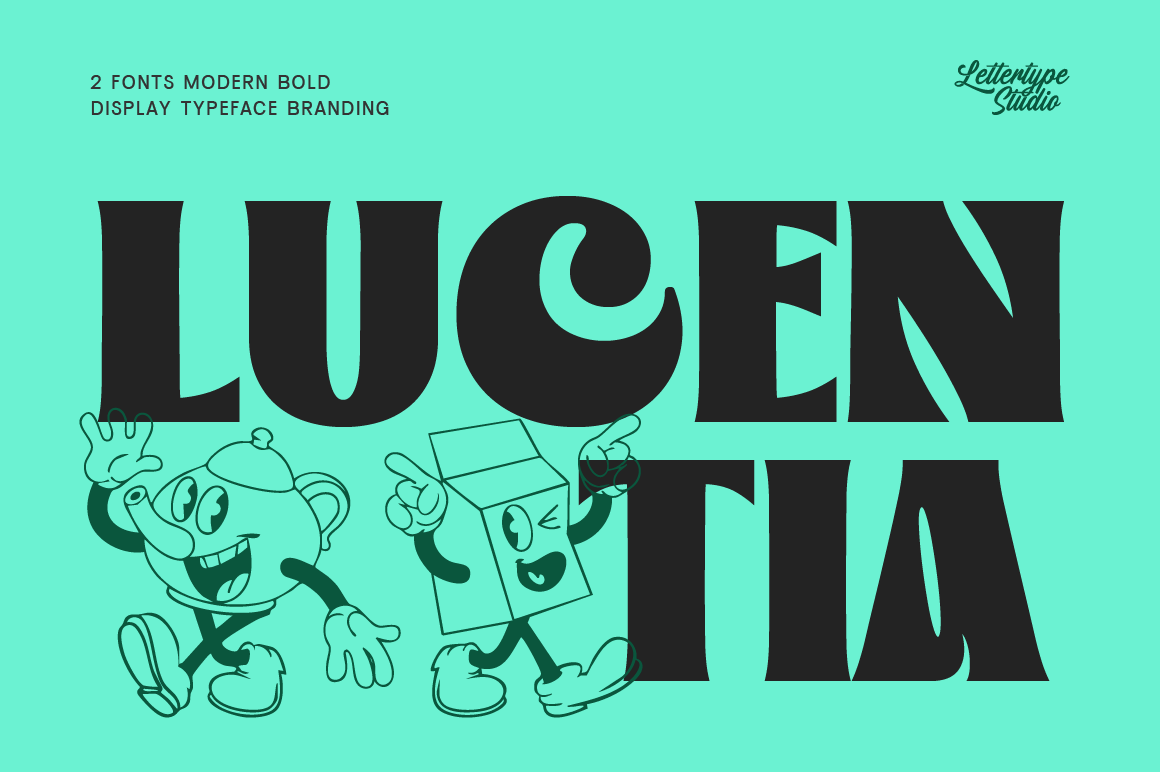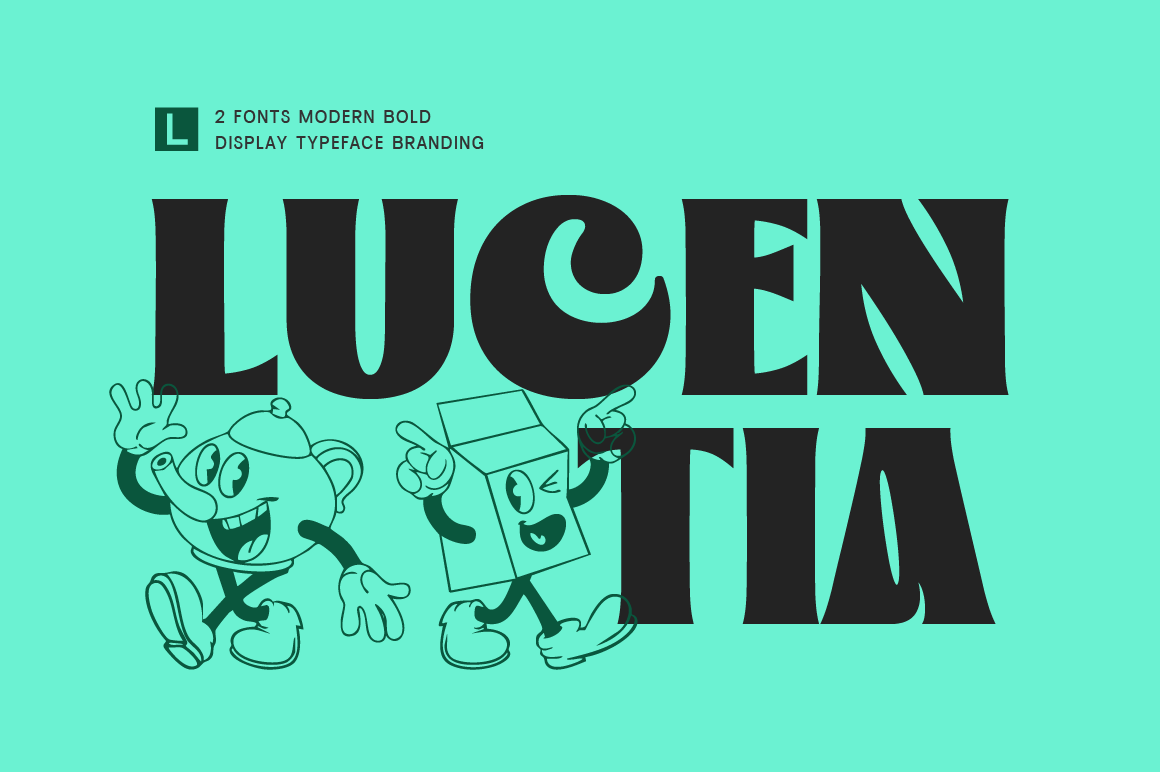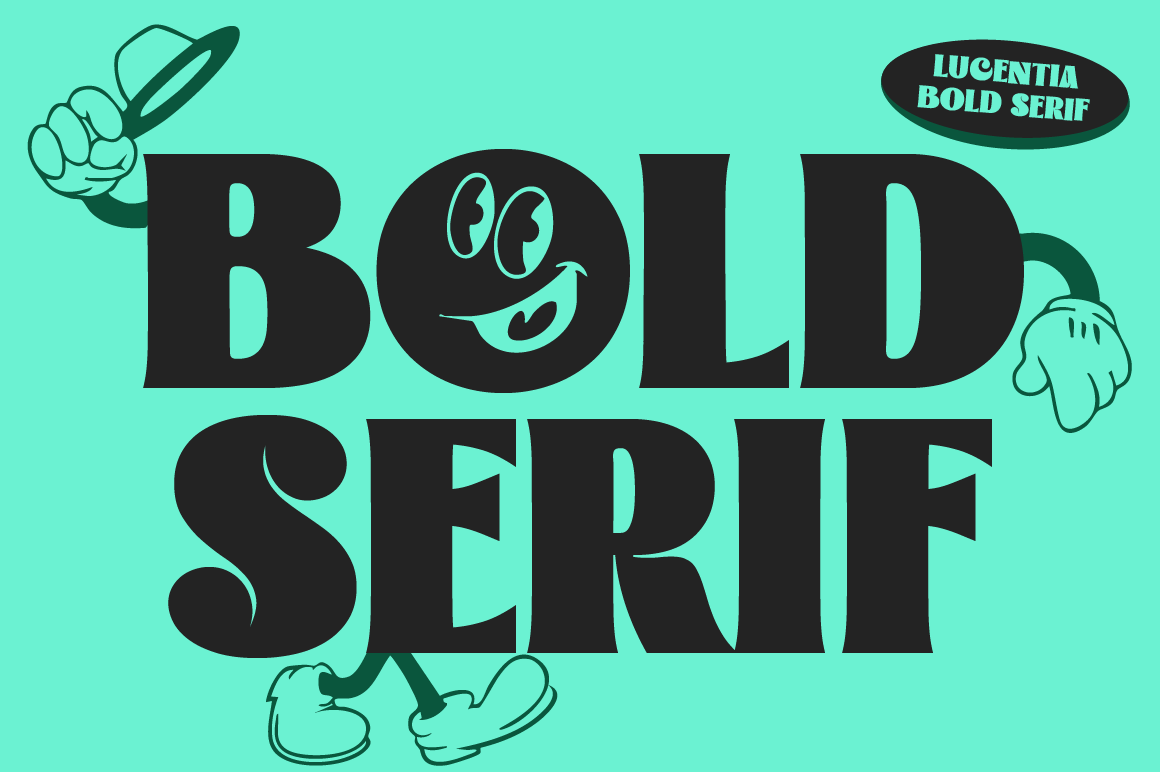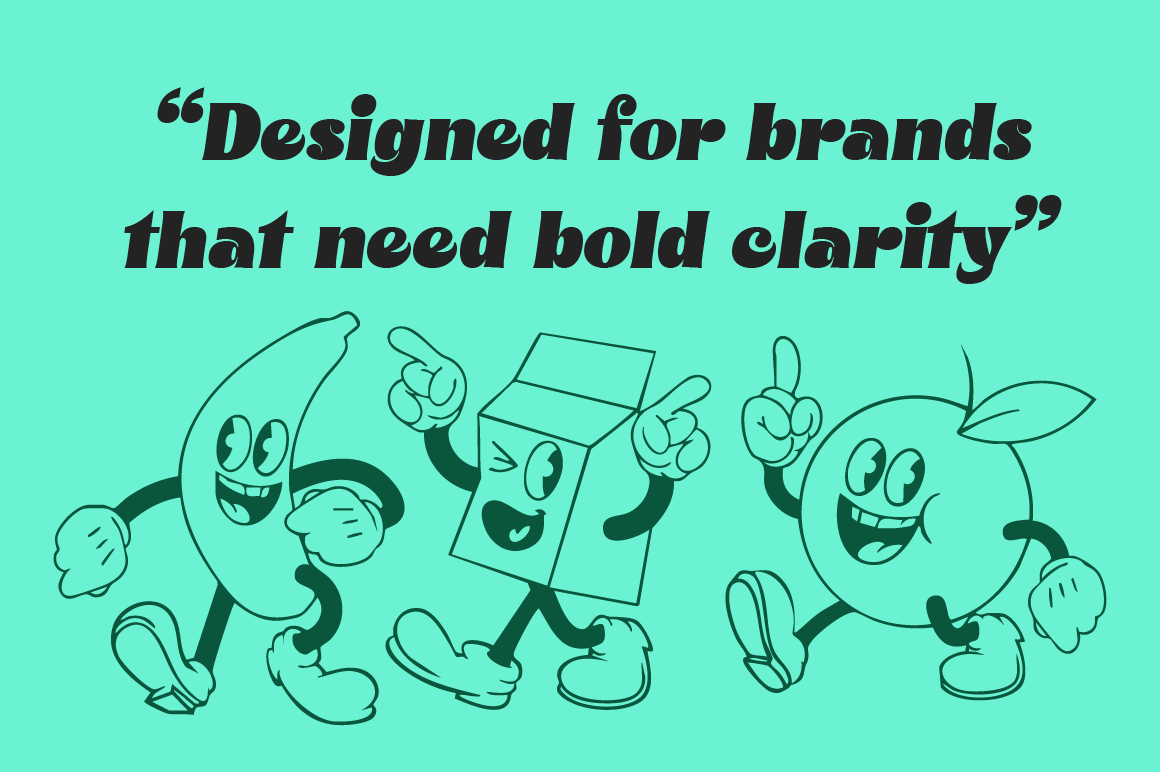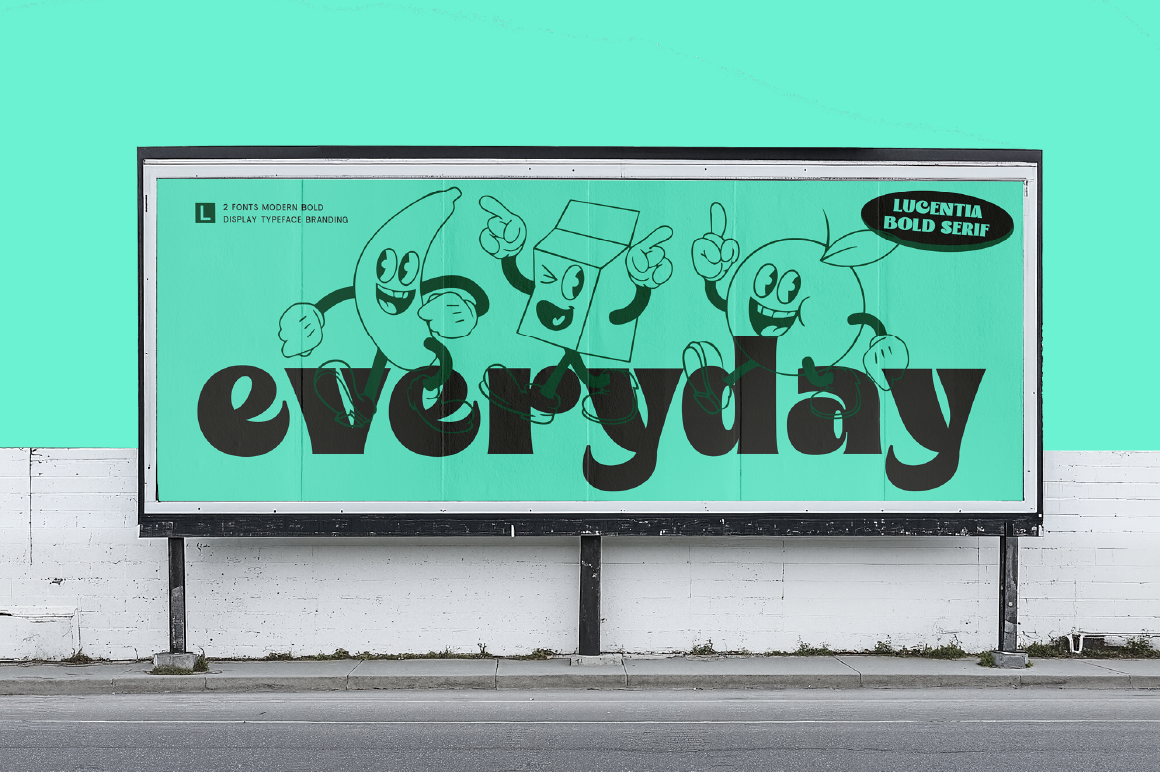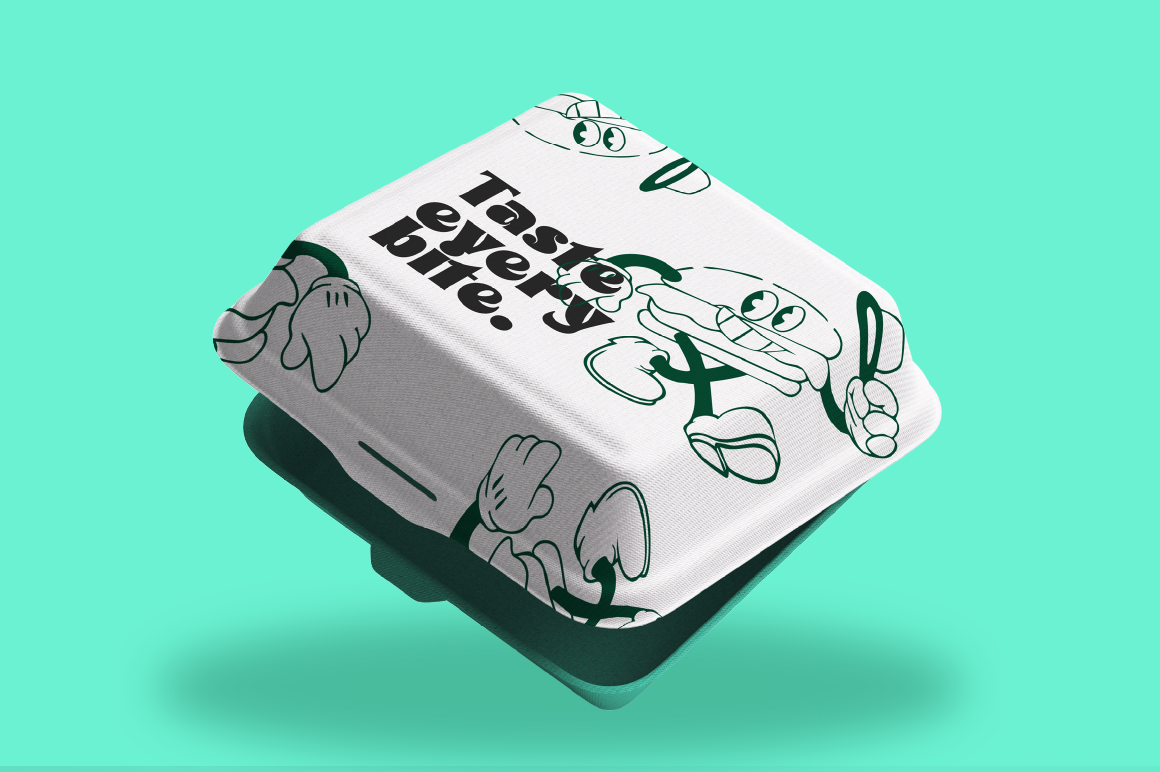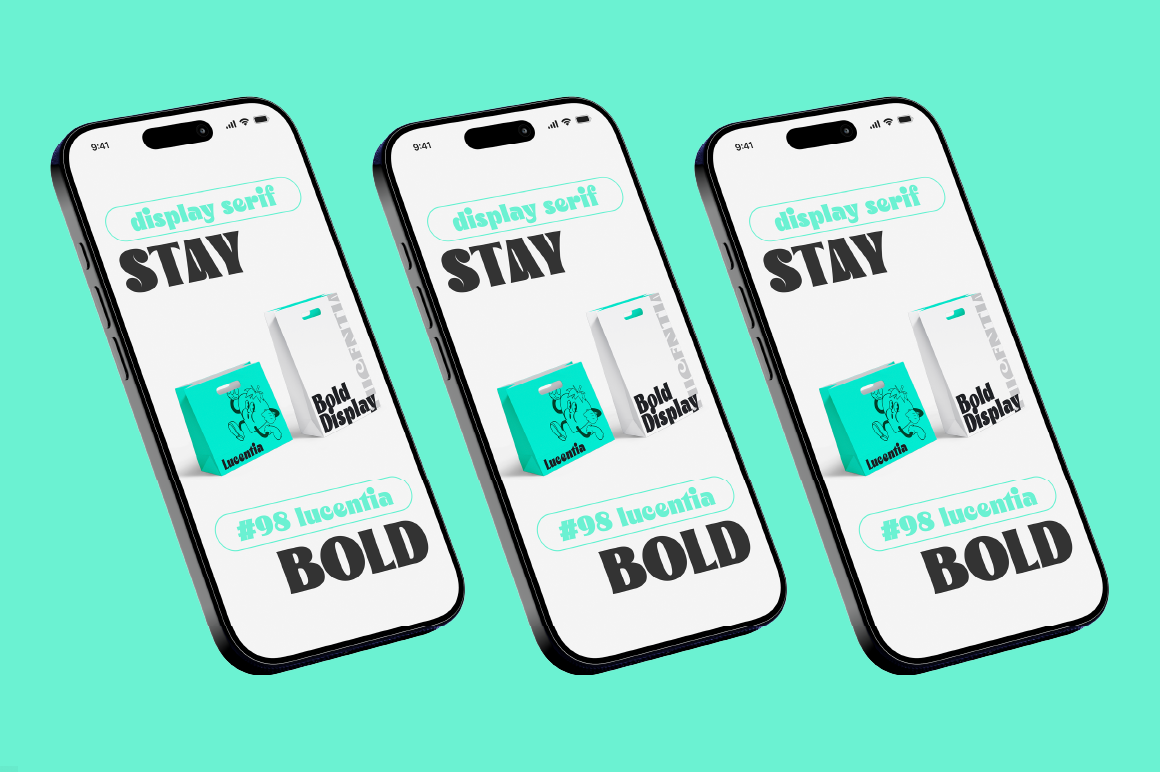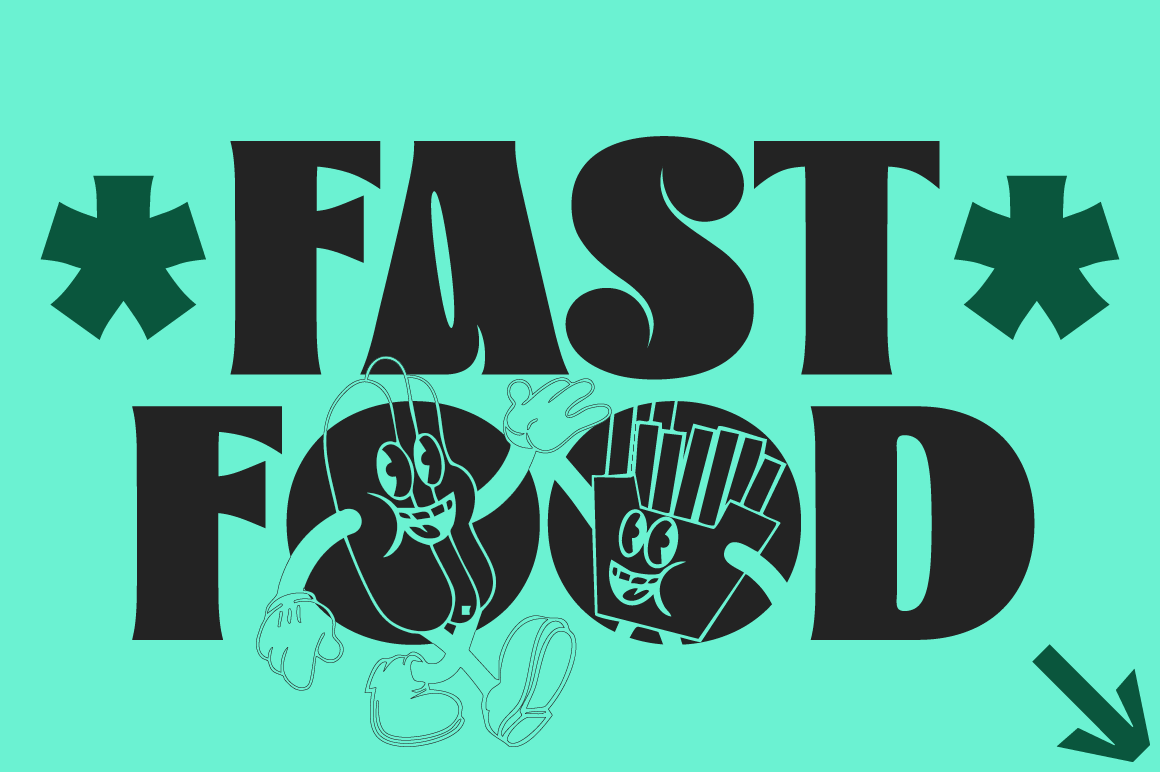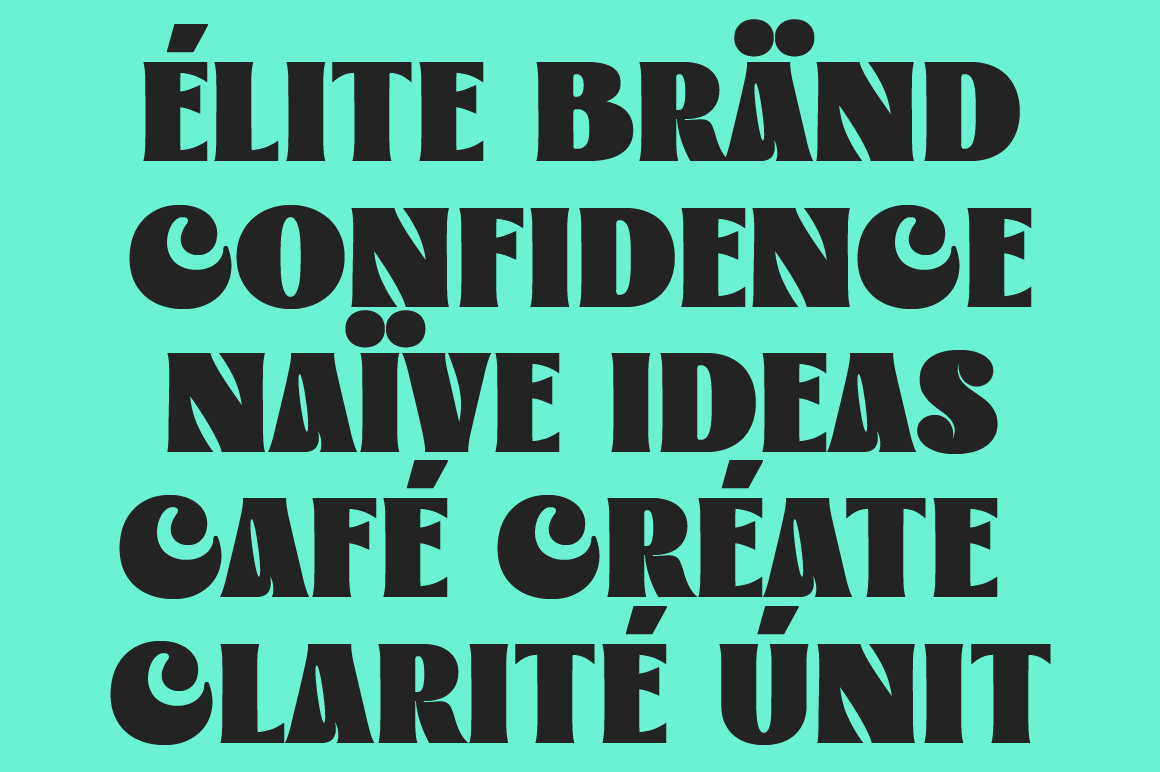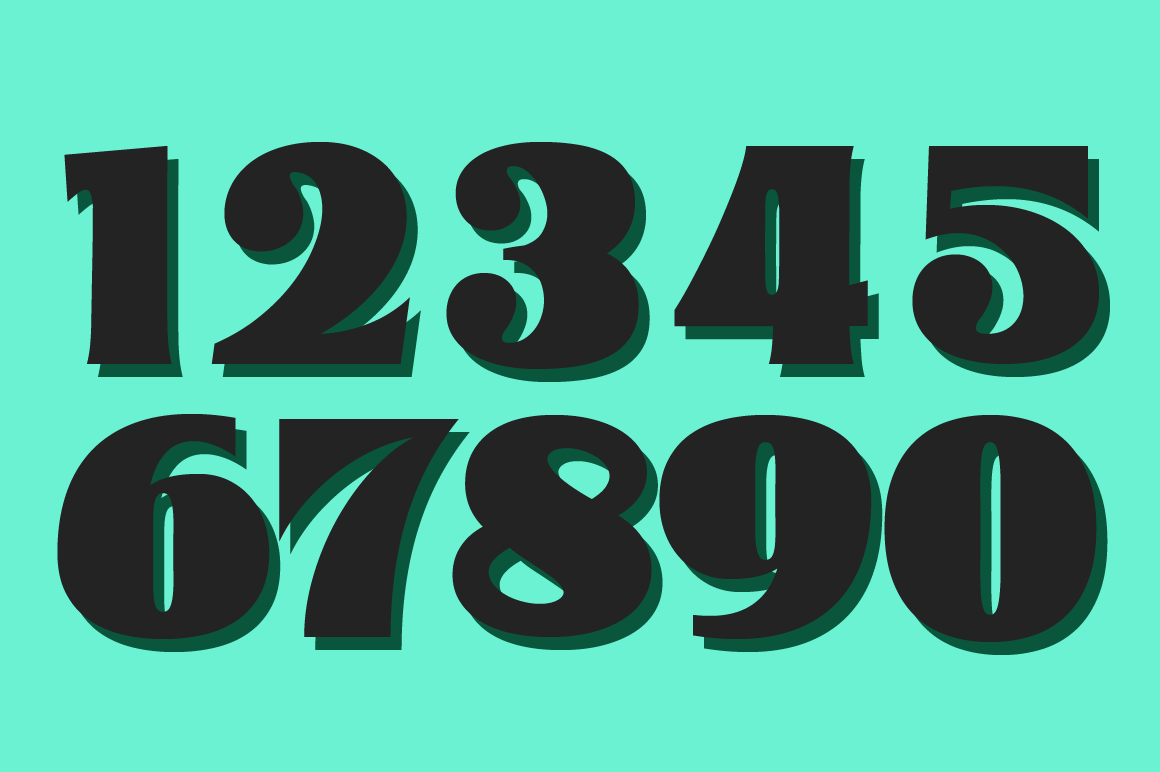
Lucentia represents a modern approach to bold display typography—strong, clean, and intentionally crafted for branding-focused design. Its balanced letterforms deliver visual authority without overwhelming composition, making it a reliable choice for logos, headlines, and brand-led layouts that demand attention.
Unlike experimental display fonts that rely on extreme shapes, Lucentia focuses on clarity and structure. This makes it especially effective for designers working on technology brands, startups, editorial projects, and contemporary visual systems where bold typography must remain readable and adaptable.
As part of the Lettertype Studio collection, Lucentia reflects a premium design philosophy: trend-aware but not trend-dependent. It is designed to perform well across evolving visual styles, ensuring long-term usability in professional branding, web design, and marketing environments.